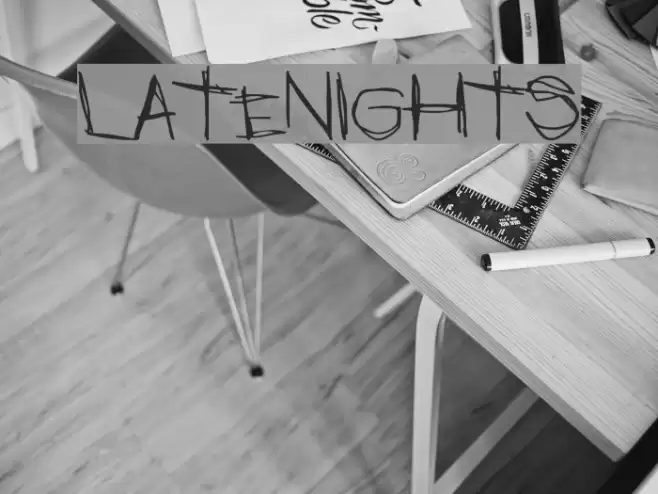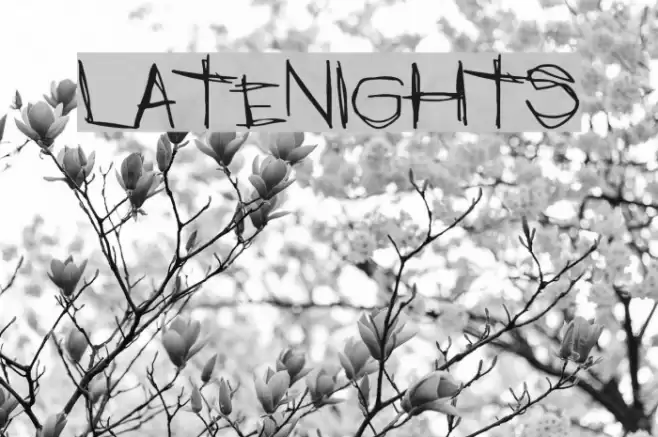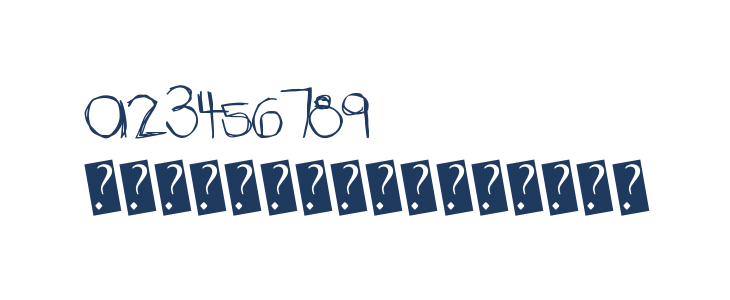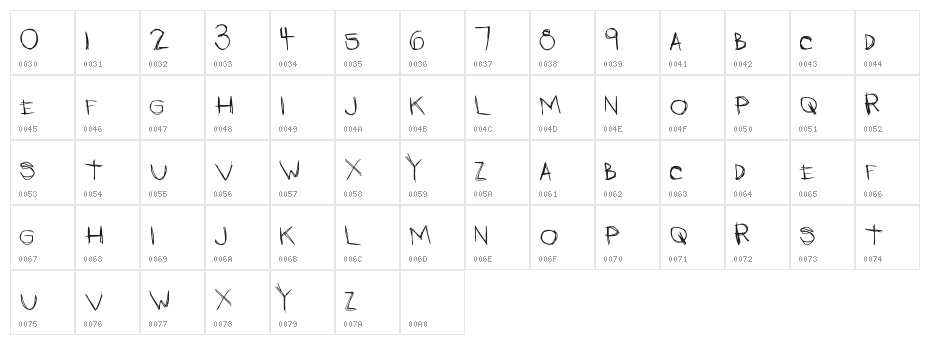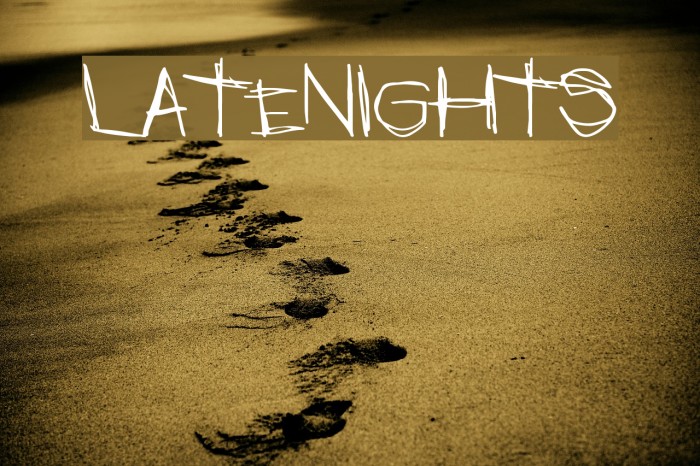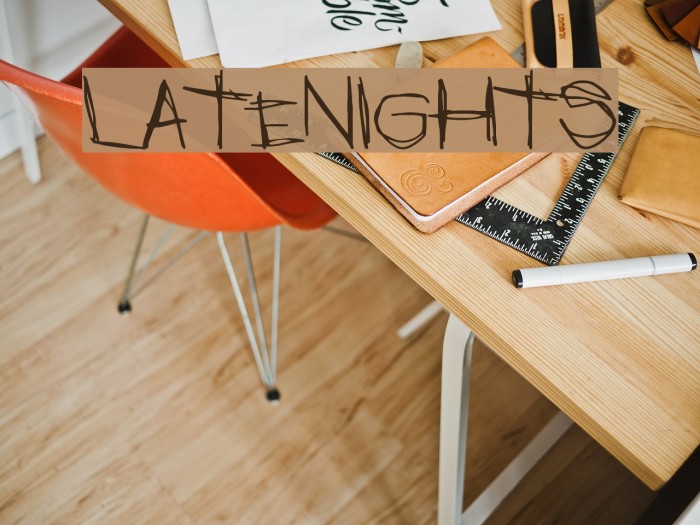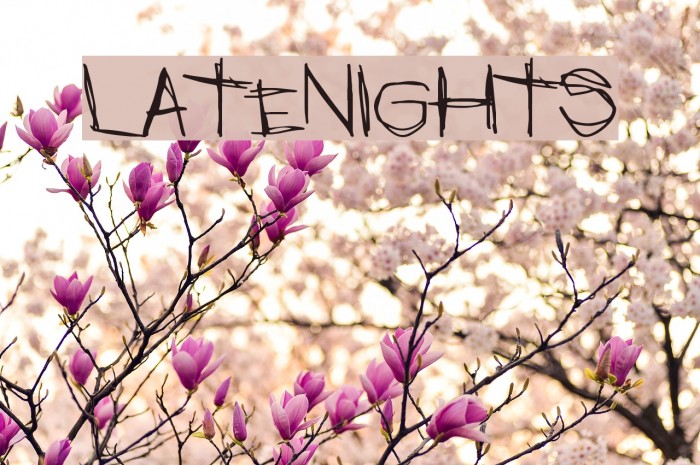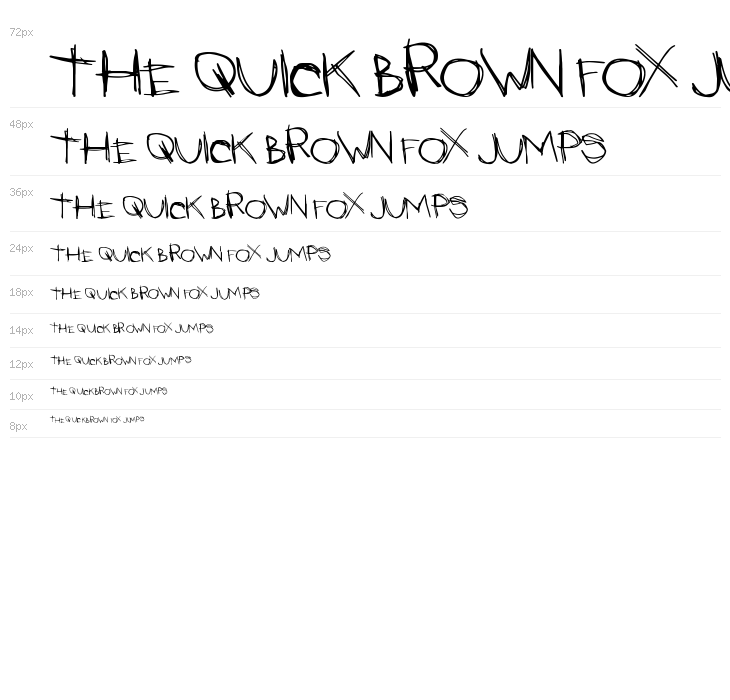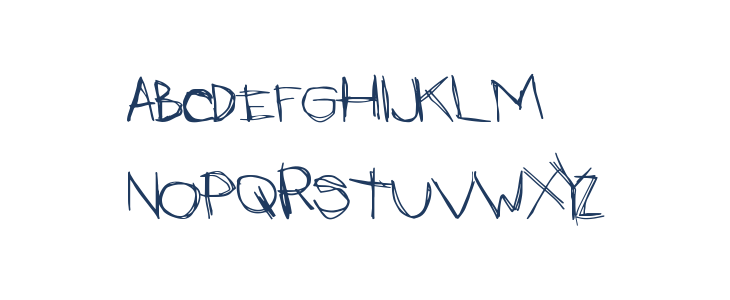
LateNights Font
LateNights Description
This font exhibits a raw, hand-drawn aesthetic with an edgy and chaotic style. The letters are irregular and appear as though they were sketched quickly with a marker, giving it a dynamic and energetic feel. The uppercase and lowercase letters share a similar style, maintaining a consistent look throughout. Numbers and special characters follow the same design, ensuring uniformity. The strokes are uneven, with varying thickness, adding to the font's informal and artistic vibe. This font is ideal for projects that require a bold, unconventional look.
A raw, hand-drawn font with an edgy and chaotic style from Uncategorized fonts.
- Proposed Projects: Ideal for album covers, graffiti art, posters, and creative branding.
- Overall Style: Modern, Artistic